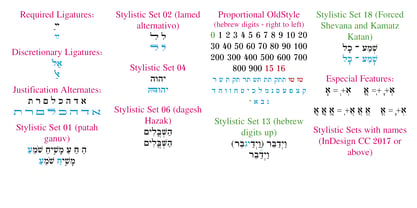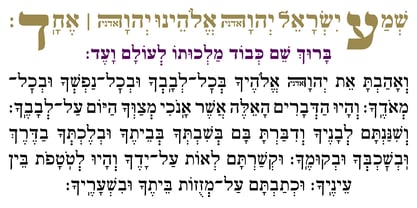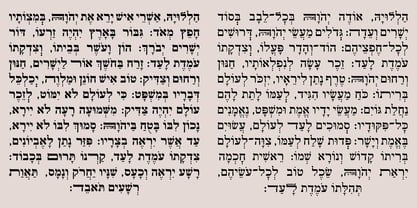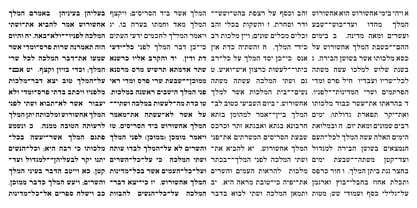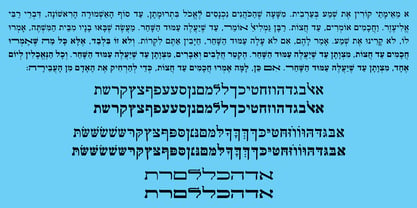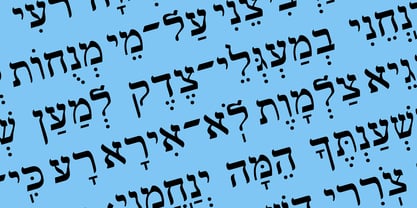
Hebrew Rinat 217 Std
por Samtype
La familia tipográfica Hebrew Rinat 217 Std fue diseñada por Sami Artur Mandelbaum y publicada por Samtype. Hebrew Rinat 217 Std contiene 2 estilos y opciones de paquete familiar. Más información sobre esta familia
This is a Classic font inspired by metal type called Peninim. This metal font was widely used in Israel from the beginning of the XX century until the end of the 80's. Rinat 217 is a modern view from this era. We added a bold weight that wasn't available at the time. You can find in this font the modern Nikud like Kamatz Katan, Shevana, Dagesh Chazak, and Cholam Chaser.